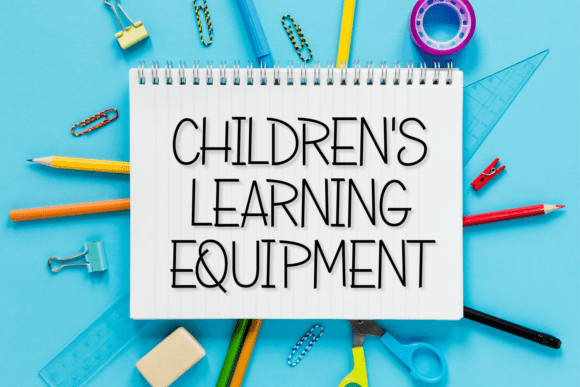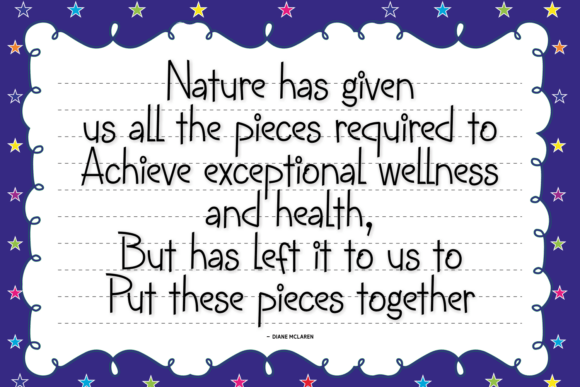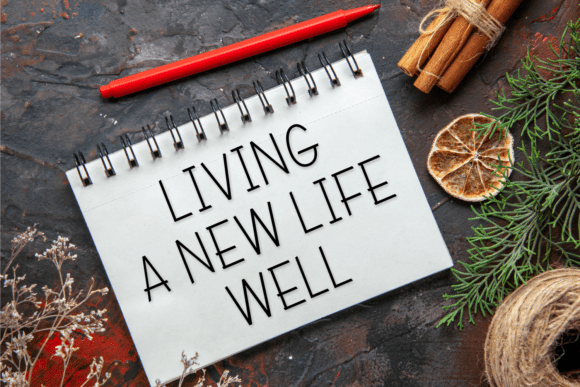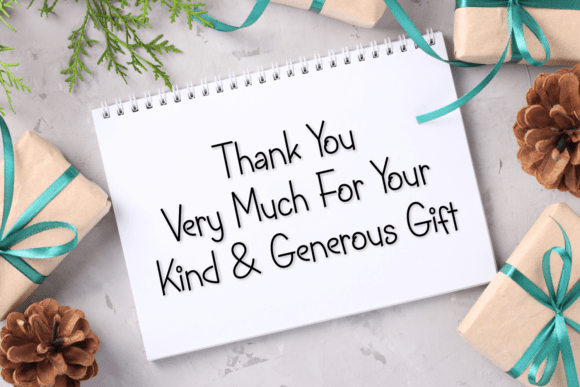
Discover the Charming Allure of Heart Booster Font: Elevate Your Designs with Adorable Love
Are you on the hunt for a font that exudes warmth, charm, and a touch of whimsy? Look no further than Heart Booster Adorable Love, a delightful font that embodies the essence of genuine and handwritten attributes. This beautiful font is perfect for designers, crafters, and bloggers seeking to add a personal touch to their creations. Whether you’re working on sassy sublimation t-shirts, poetic wall arts, or romantic greeting cards, Heart Booster Adorable Love is the ideal choice to make your designs shine.
Unleash Your Creativity with Heart Booster Adorable Love
This feminine font is designed to transform your brand’s packaging, illustrations, and typography into stunning works of art. Its versatility makes it an excellent choice for various applications, including:
- Sassy Sublimation T-Shirts: Add a touch of personality to your t-shirt designs with Heart Booster Adorable Love. Its playful and charming attributes make it perfect for creating eye-catching and trendy apparel.
- Poetic Wall Arts: Elevate your wall art designs with the romantic and whimsical feel of Heart Booster Adorable Love. This font is sure to mesmerize your audience and add a touch of elegance to any room.
- Easter Exhortations: Celebrate Easter in style with Heart Booster Adorable Love. This font embodies the spirit of good fortune and is perfect for creating captivating Easter messages and designs.
- Valentine Designs: Make your Valentine’s Day designs extra special with the romantic and charming attributes of Heart Booster Adorable Love. This font is sure to make your creations stand out and convey your message with love.
The Benefits of Using Heart Booster Adorable Love
So, what makes Heart Booster Adorable Love an excellent choice for designers and crafters? Here are just a few benefits of using this delightful font:
- Feminine and Whimsical: Heart Booster Adorable Love boasts a feminine and whimsical feel that’s perfect for creating romantic and charming designs.
- Handwritten Attributes: This font’s handwritten attributes add a personal touch to your designs, making them more relatable and engaging.
- Versatile: Heart Booster Adorable Love is a versatile font that can be used for various applications, from t-shirt designs to wall arts and greeting cards.
- Elegant and Sophisticated: This font’s elegant and sophisticated attributes make it perfect for creating high-end designs that exude luxury and refinement.
Why Designers and Crafters Love Heart Booster Adorable Love
Designers and crafters adore Heart Booster Adorable Love for its unique and charming attributes. Here are just a few reasons why:
- Easy to Read: This font is easy to read, making it perfect for creating designs that require clear and concise communication.
- Highly Legible: Heart Booster Adorable Love is highly legible, even at small font sizes, making it ideal for creating detailed designs.
- Unique and Creative: This font’s unique and creative attributes make it stand out from other fonts, allowing designers and crafters to create one-of-a-kind designs.
| Font Name | Heart Booster Font |
| Author | Wankriss |
In conclusion, Heart Booster Adorable Love is a charming and delightful font that’s perfect for designers, crafters, and bloggers seeking to add a personal touch to their creations. Its feminine and whimsical attributes, combined with its versatility and elegance, make it an excellent choice for various applications. Whether you’re working on sassy sublimation t-shirts, poetic wall arts, or romantic greeting cards, Heart Booster Adorable Love is sure to elevate your designs and make them shine. So why wait? Immerse yourself in the delightfully charming allure of Heart Booster Adorable Love and discover a world of creative possibilities.